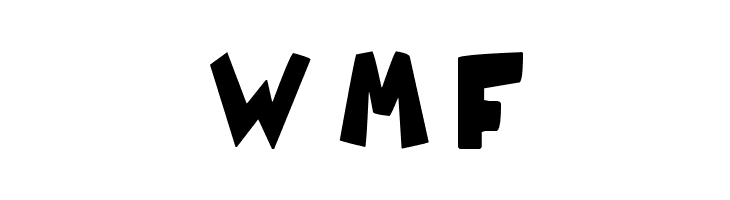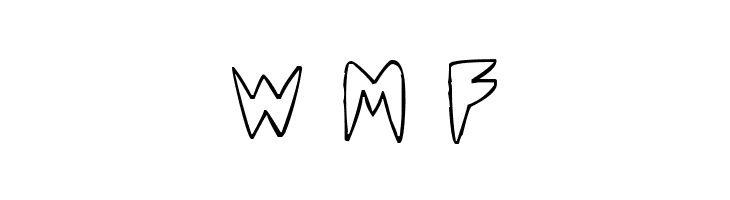
( Fonts by Daniel Werneck )
A bold, geometric font with sharp angles and a modern style.
( Fonts by Audrius Skersys - www.extate.lt )
A whimsical, hand-drawn font with playful, irregular letterforms.
( Fonts by Rodrigo German - RASDESIGN )
A playful, hand-drawn font with a whimsical and informal style.
( Fonts by Aryel Filipe )
A bold, playful font with exaggerated, cartoon-like letterforms.
( Fonts by Steve Ferrera )
A bold, playful font with a whimsical, hand-drawn style.
( Fonts by Aryel Filipe )
A bold, playful font with thick, rounded characters and a dynamic style.
A playful 3D hand-drawn font with bold, shadowed letters.
( Fonts by billyargel.blogspot.com - Billy Argel )
A playful, hand-drawn font with a bold and quirky style.
A playful, heart-themed decorative font with a hand-drawn style.
( Fonts by Rodrigo German - RASDESIGN )
A playful, hand-drawn font with bold, irregular outlines and quirky details.
( Fonts by Rodrigo German - RASDESIGN )
A playful, hand-drawn font with a cartoonish and quirky style.
( Fonts by Rodrigo German - RASDESIGN )
A playful, hand-drawn font with bold, rounded letters and a whimsical style.
( Fonts by billyargel.blogspot.com - Billy Argel )
A playful, sketch-like font with a hand-drawn appearance and textured strokes.
( Fonts by Rodrigo German - RASDESIGN )
A bold, playful font with a unique striped pattern and rounded characters.
A playful, bold font with rounded, slightly slanted characters.